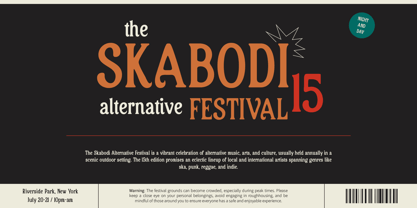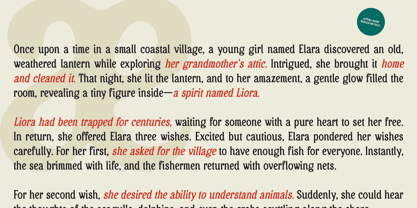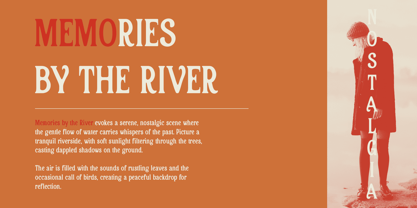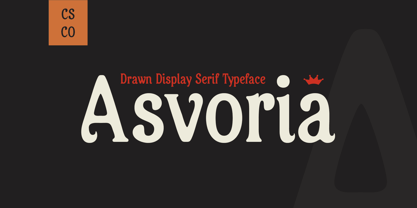
Asvoria Drawn
The Asvoria Drawn Font Family was designed by Trio Nazzar Saputra, Wahyu Hadi Yuana and published by Craft Supply Co. Asvoria Drawn contains 2 styles and family package options. More about this family
Asvoria Drawn – Elegant Classic Serif Font
Radiating Elegance and Nostalgic Charm
Asvoria Drawn is a classic serif font that effortlessly combines beauty with a retro feel, radiating an air of elegance and nostalgic charm. Its meticulously crafted design features smooth curves and intricate details that create a rich, captivating impression, making it a standout choice for various design applications.
Artisanal Touch with Modern Relevance
Layered with a unique drawn effect, Asvoria Drawn adds an artisanal touch that enhances the character and warmth of each letter. This distinctive quality imbues the font with personality, making it ideal for projects that seek to evoke a vintage atmosphere while still appealing to contemporary aesthetics.
Perfect for Elegant Projects
Whether you’re designing elegant invitations, sophisticated branding, or engaging marketing materials, Asvoria Drawn provides the perfect touch of refinement. Its classic elegance is versatile enough to complement a range of themes, ensuring your designs leave a lasting impression.
Captivating Visual Appeal
The combination of retro charm and modern relevance allows Asvoria Drawn to fit seamlessly into both traditional and contemporary design contexts. This font invites creativity and inspiration, making it a valuable asset for designers looking to convey beauty and sophistication.